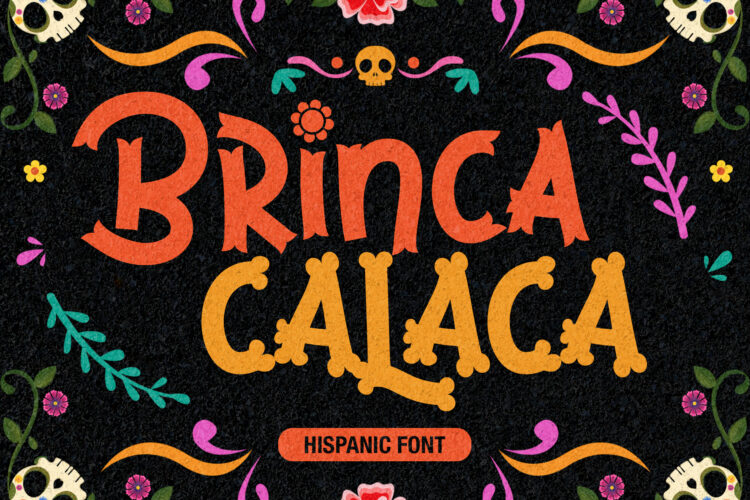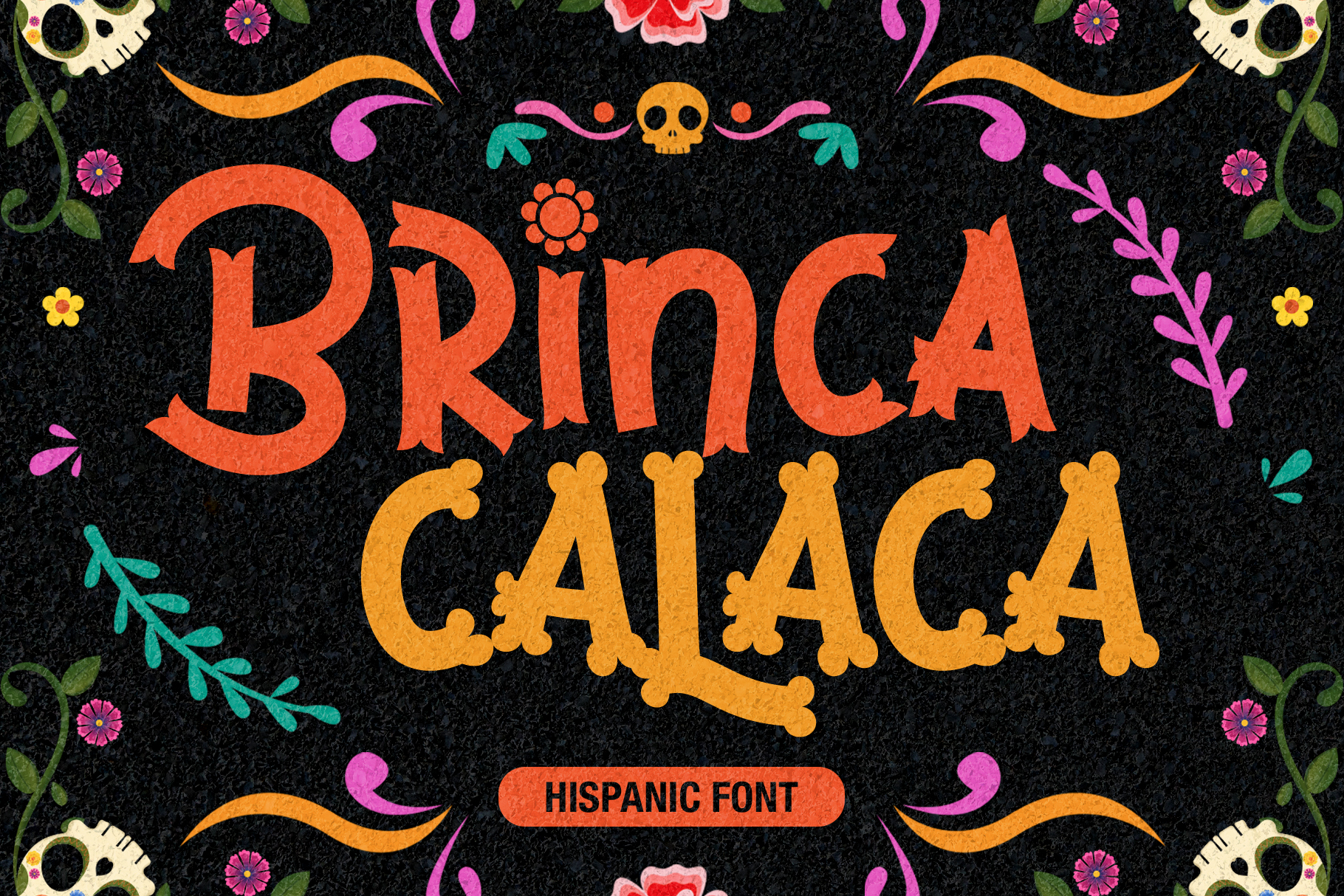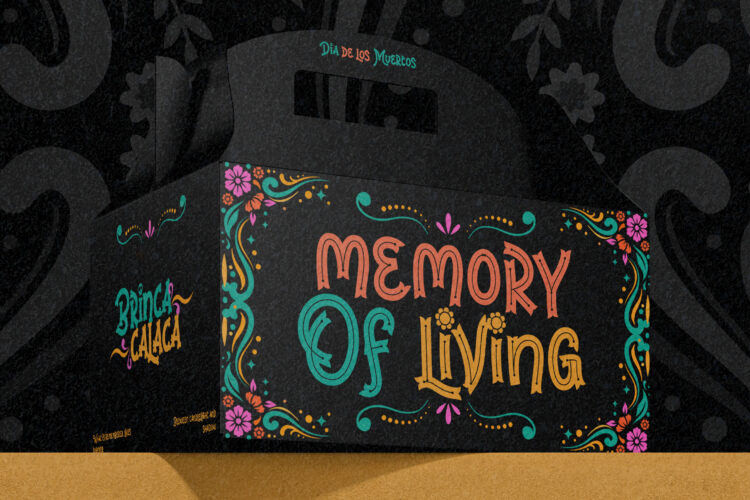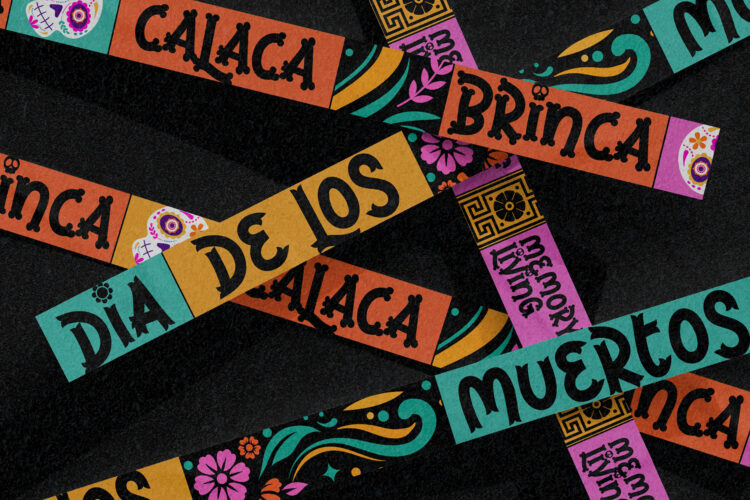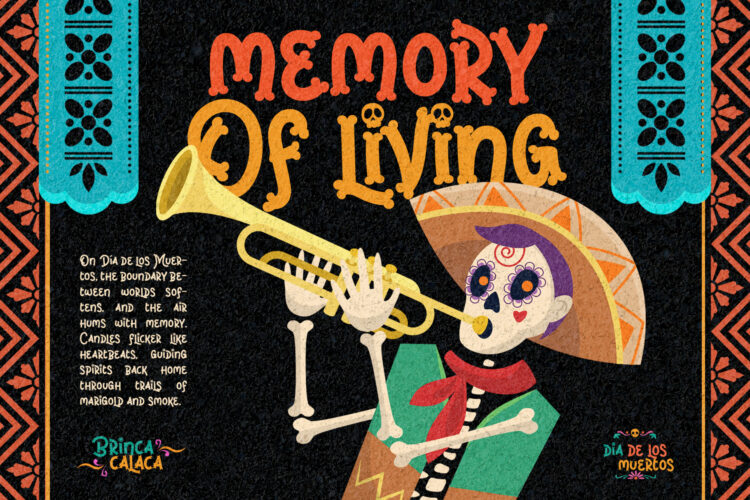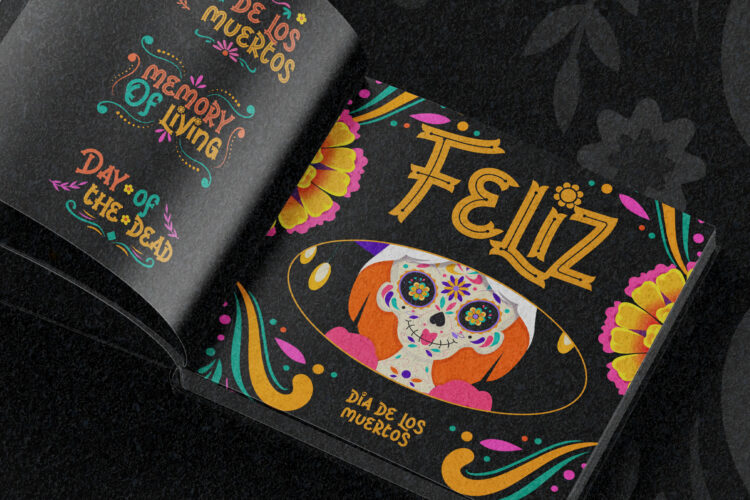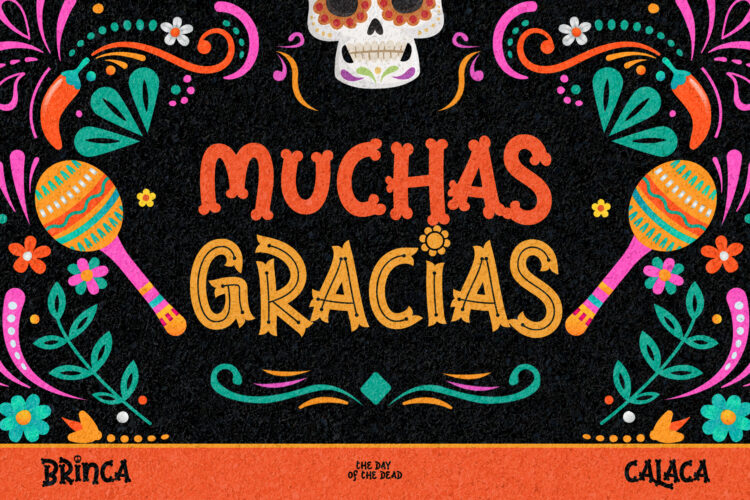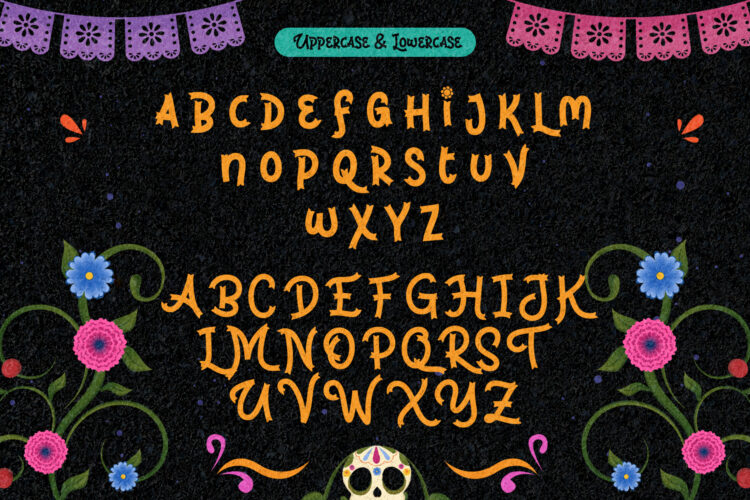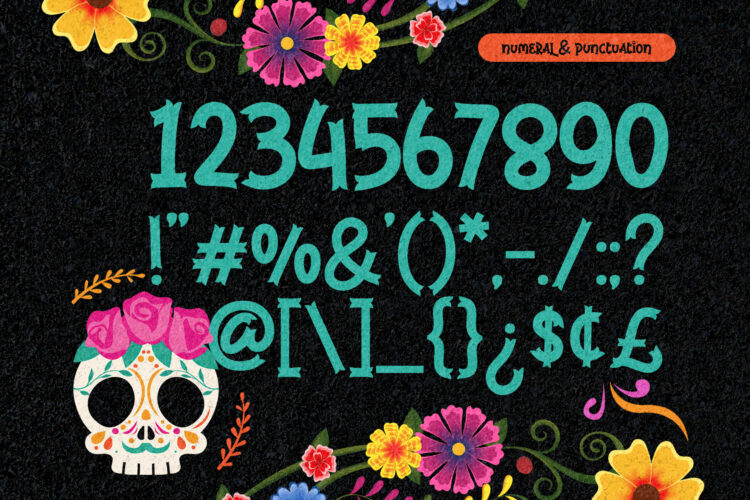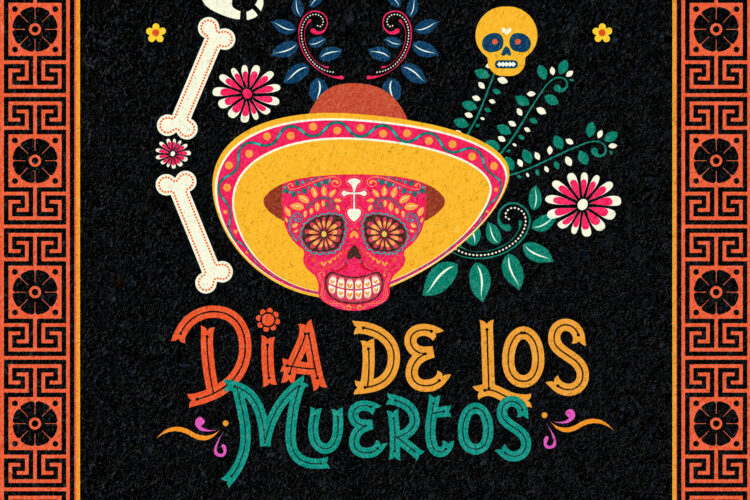
Brinca Calaca - Regular
Brinca Calaca - Bones
Brinca Calaca - Inline
Brinca Calaca – Hispanic Font
Brinca Calaca is a vibrant Hispanic font family inspired by Dia de los Muertos, featuring bone-styled glyphs, festive ornaments, and a joyful Latin spirit. With Regular, Inline, and Bone variants, this playful display font is perfect for holiday posters, cultural branding, and themed events that need bold personality and handcrafted charm.
• 3 Font Styles: Regular, Inline, Bone
• Dia de los Muertos Posters
• Hispanic & Latin Culture Designs
• Event Flyers & Invitations
• Restaurant or Food Branding
• Party Decorations
• Editorial Titles
• Craft & Merchandise Projects
Brinca Calaca – Display Family Font